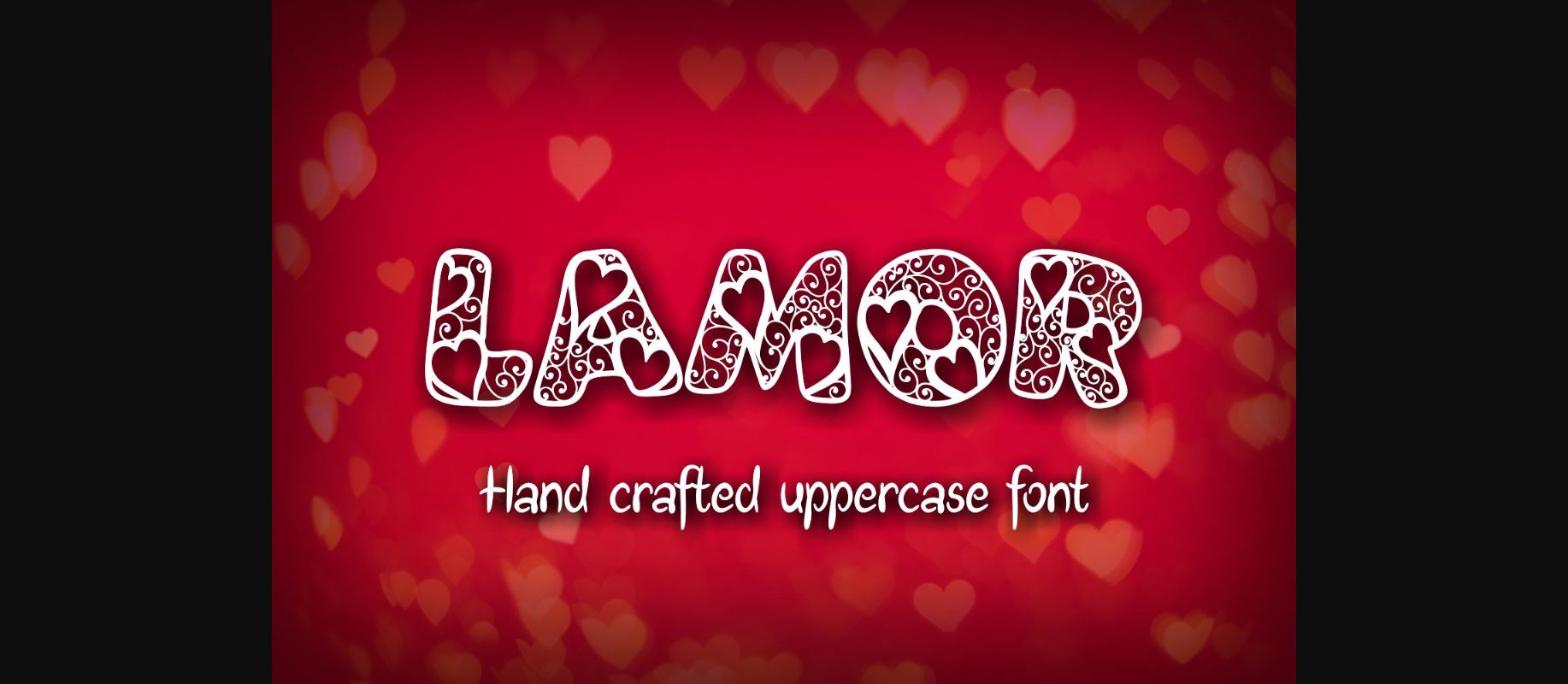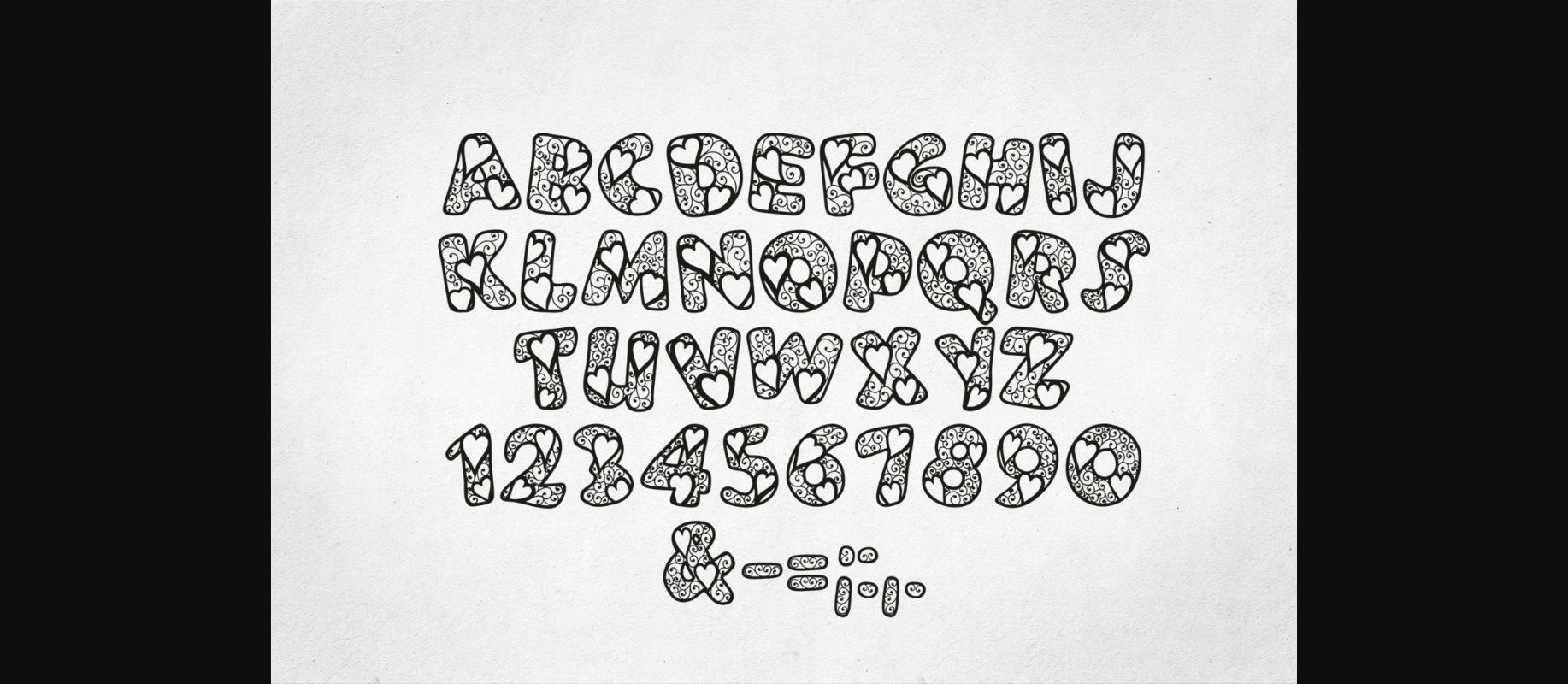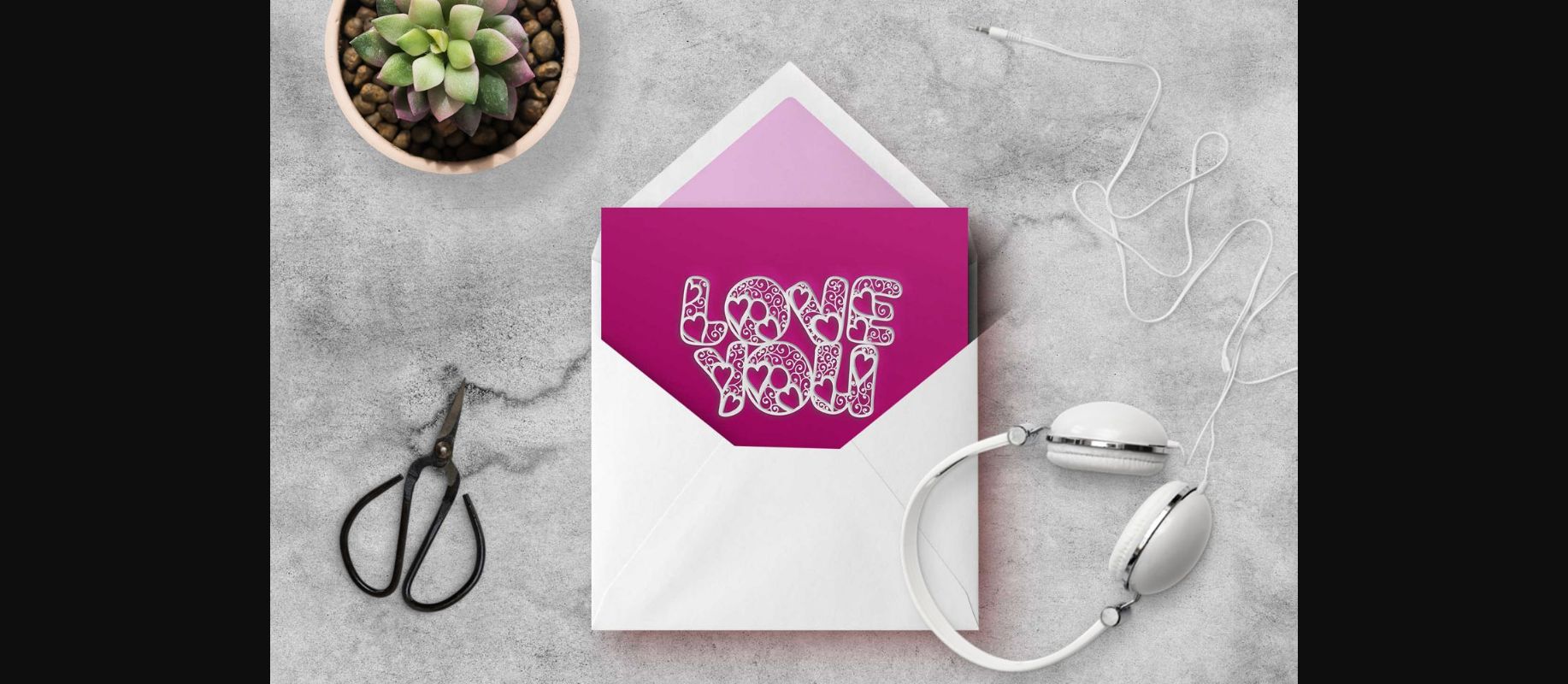
About Lamor Font
The Lamor is a hand drawn uppercase font. It’s letters are decorated with beautiful hearts which makes it perfect for valentine designs.